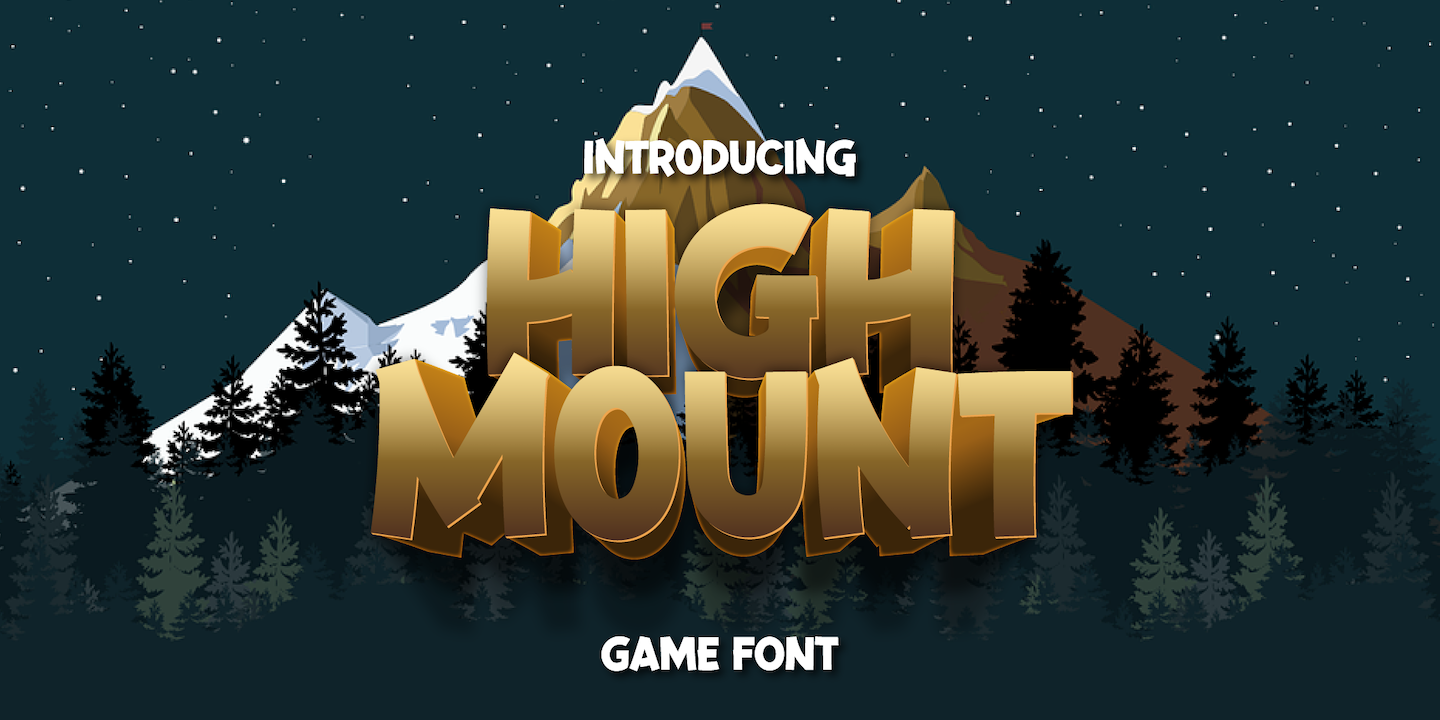
This majestic typeface excels in various elevated applications including outdoor adventure brands, mountain resort identities, climbing equipment packaging, alpine lodge signage, wilderness expedition materials, national park publications, hiking trail guides, and extreme altitude sports promotions. The High Mount Font embodies peak performance with its towering letterforms that rise with mountainous strength and summit-reaching ambition.
What makes this font truly exciting is its powerful ability to convey both the raw majesty of mountain peaks and the human triumph of reaching new heights through boldly ascending characters. The monumentally designed letters feature strong vertical emphasis, angular peaks, and stable foundations that make every word feel carved from mountain stone. Its distinctive personality combines rugged durability with aspirational elegance, creating typography that inspires viewers to reach their own personal summits.
The High Mount Font family includes altitude-inspired variations: Regular, Bold, Extra Bold, Condensed, and Extended styles, plus topographic alternates. Each family member maintains the signature mountainous character while providing flexibility for creating designs that range from subtly elevated to dramatically monumental.